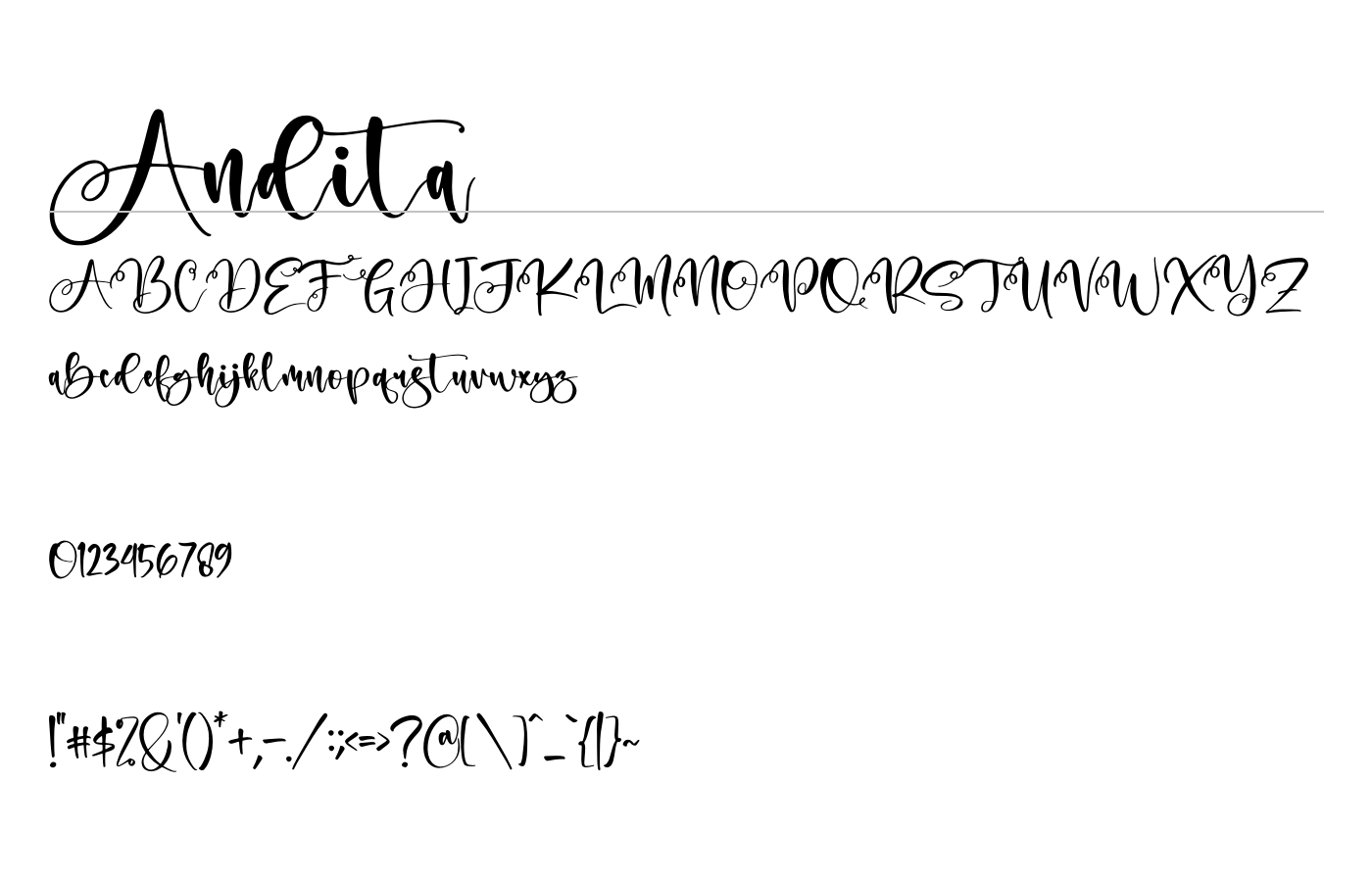
Andita is an elegant script font with flowing, handwritten strokes that combine both thick and thin contrasts to create a lively and graceful feel. Its decorative swirls and loops add a playful yet sophisticated charm, making it perfect for wedding invitations, branding, and any design needing a personal, artistic touch. This font shines in headlines and logos where a stylish, feminine character is desired.
Andita Font
About Andita Font